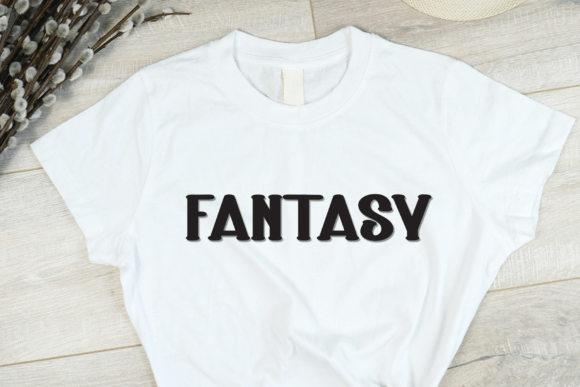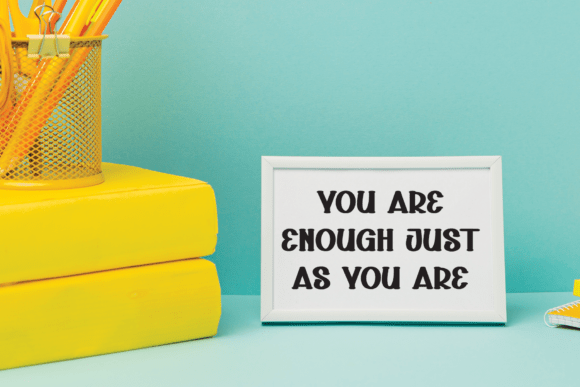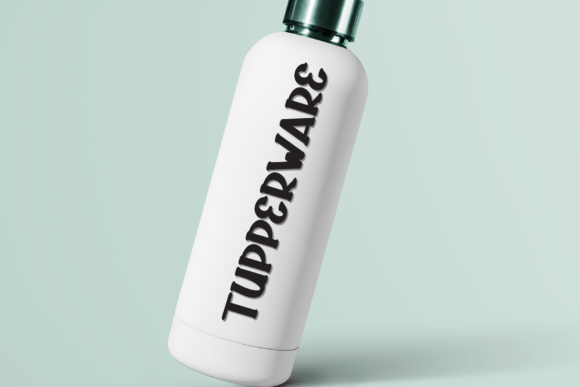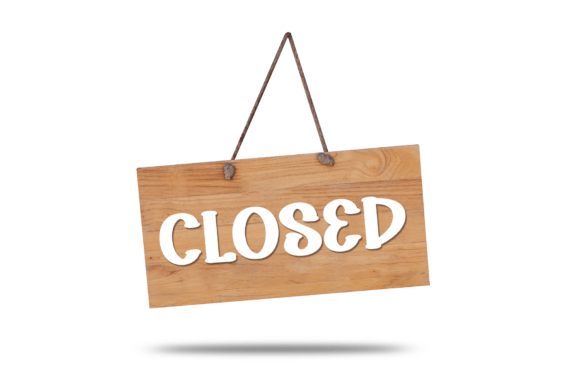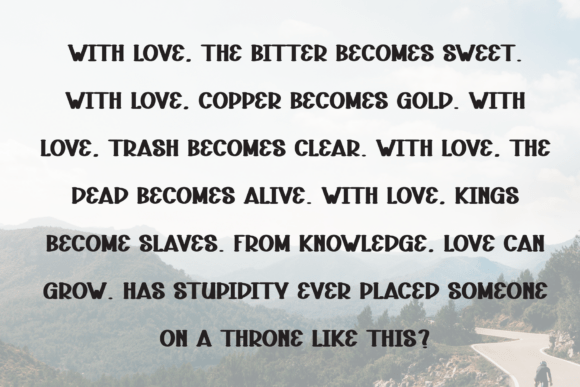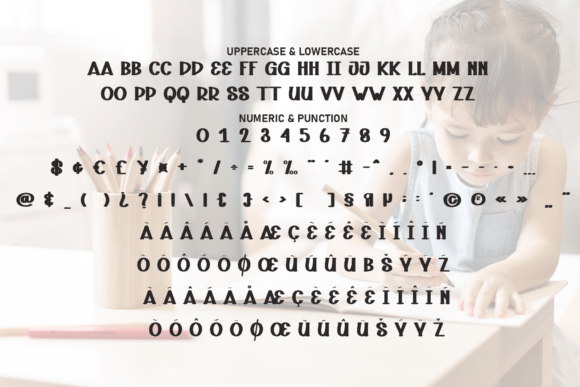
Discover the Perfect Font for a Relaxing Summer Vibe
As a designer, you know the thrill of finally landing on the perfect font for your project. It’s that moment when everything clicks, and your design starts to come alive. For me, it was when I stumbled upon Baby School Font – a delightful display font that screams summer fun and relaxation. Its clean lines and easygoing vibe immediately captured my attention, and I knew I had to learn more.
Baby School Font is a versatile typeface designed to bring a breezy, laid-back feel to any creative project or message. With its casual charm, it’s perfect for summer posters, event flyers, and playful branding. Whether you’re working on a project that needs a carefree touch or simply want to add some personality to your designs, Baby School Font is an excellent choice. Its value lies in its ability to evoke a sense of relaxation and fun, making it a must-have in any designer’s toolkit.
Baby School Font Key Features
- Unique Characteristics: Designed for educational purposes, features child-friendly shapes and colors, suitable for use in schools and nurseries
- Character Count: 1200+ characters, including uppercase and lowercase letters, numbers, and special symbols
- Language Support: Multi-language support, including English, Spanish, French, and many more
Designer Review: Baby School Font
Overall, I think the Baby School Font is a cute and playful font that could work well for certain projects, especially those targeting a young audience. ✨ The rounded edges and simplistic design make it perfect for titles, headings, or any text that needs a friendly touch.
Some of the strengths of this font include:
- High legibility: The font is easy to read, even at smaller font sizes.
- Variety of weights: The font comes in multiple weights, allowing for more versatility in design.
- Cute and playful feel: The font is perfect for projects that need a lighthearted and approachable vibe.
However, there are some limitations to consider: ⚠️ The font can feel a bit childish or immature for more serious projects, and it may not be suitable for all audiences.
Overall, I think the Baby School Font is a great choice for designers looking for a fun and playful font. While it may not be the best fit for every project, it’s a solid option for those targeting a younger audience or looking to add a lighthearted touch to their design.
Baby School Font is commonly used for:
- Children’s educational materials.
- Baby shower invitations and decorations.
- Children’s book covers and illustrations.
Tips for Getting the Most Out of Baby School Font
For best results, pair Baby School Font with simple, colorful designs and illustrations. This font is perfect for creating playful and whimsical designs that appeal to children.
Alternatives to Baby School Font
Great Vibes is a script font designed by Handmade Heroes. It’s ideal for adding a touch of elegance and sophistication to your designs, particularly for titles and headings. When to use: Wedding invitations, luxury branding, and high-end advertising.
Great Vibes is more elegant and refined compared to Baby School Font, with a more fluid and cursive feel. It’s perfect for designers who want to create a sense of luxury and sophistication.
Lobster is a casual, cursive font designed by Pablo Impallari and Rodrigo Fuenzalida. It’s great for adding a playful and laid-back feel to your designs, particularly for titles and headings. When to use: Casual branding, streetwear, and social media graphics.
Lobster is more casual and playful compared to Baby School Font, with a more relaxed and handwritten feel. It’s perfect for designers who want to create a sense of fun and approachability.
Pacifico is a beautiful, modern script font designed by Vernon Adams. It’s ideal for adding a touch of sophistication and elegance to your designs, particularly for titles and headings. When to use: Luxury branding, high-end advertising, and upscale events.
For optimal readability, we recommend using the Baby School Font at a minimum font size of 12 points and a line height of at least 1.5 times the font size. This will ensure clear and legible text, especially in digital formats.